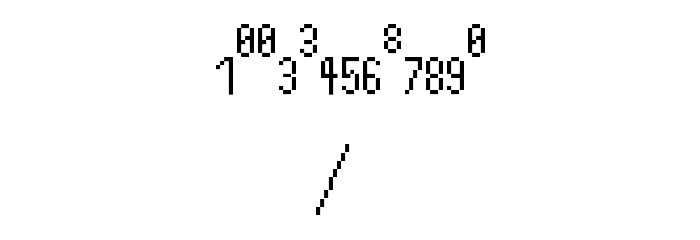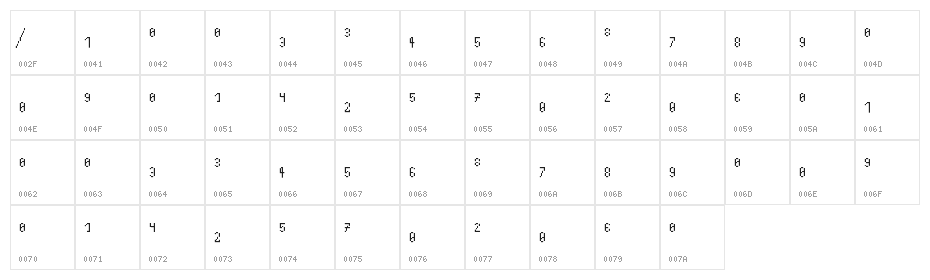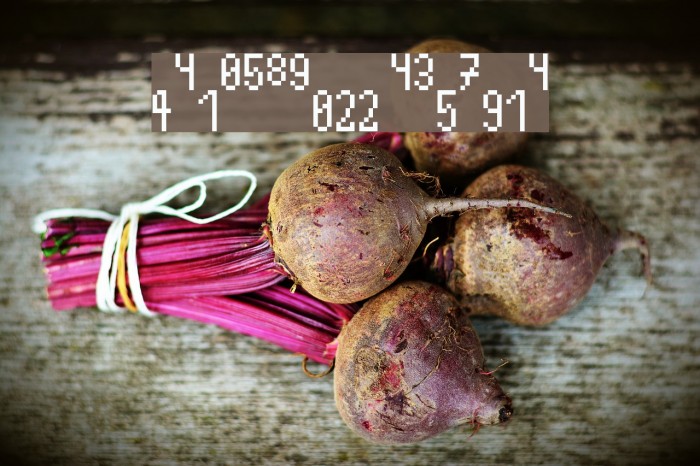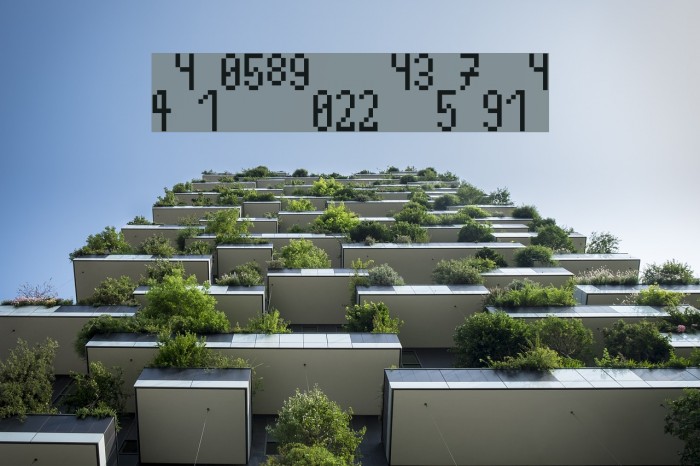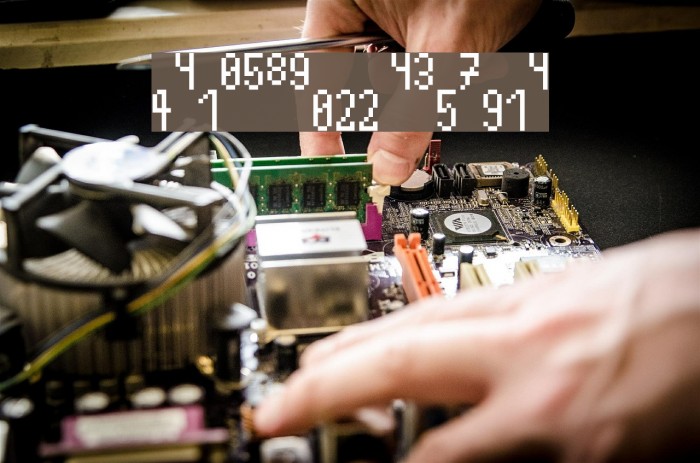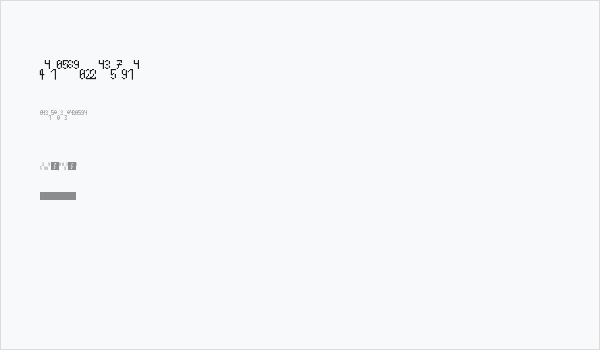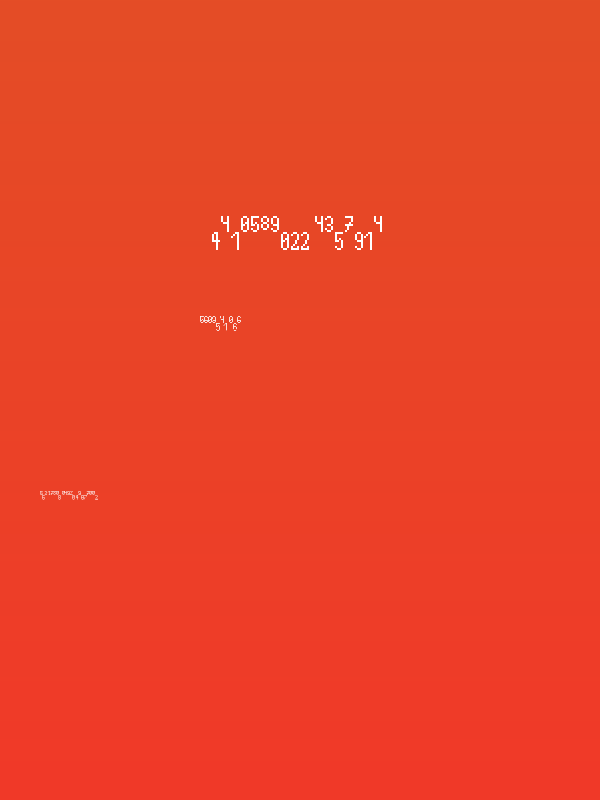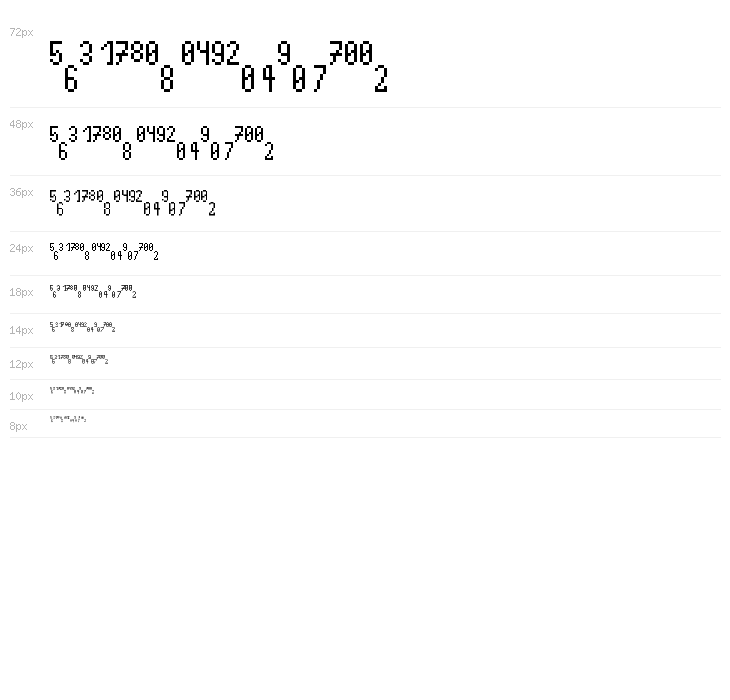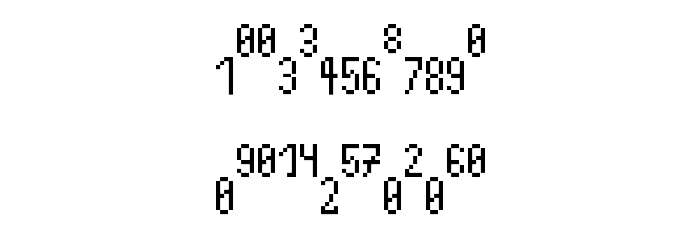
Fractionss Regular Font
Fractionss Regular Description
This font is designed specifically for displaying fractions, with a unique arrangement that allows numbers to be stacked vertically. The characters are monospaced, ensuring consistent alignment and spacing, which is crucial for mathematical expressions. The numerals are clear and legible, with a slightly condensed width to accommodate the vertical stacking of numbers. The font maintains a clean and modern aesthetic, making it suitable for technical documents or educational materials where fractions are frequently used. The slashes used for division are distinct and well-defined, enhancing readability.
| Use Case | Technical documents, Educational materials |
| Proposed Projects | Ideal for educational materials, technical documents, or any project requiring clear fraction representation. |